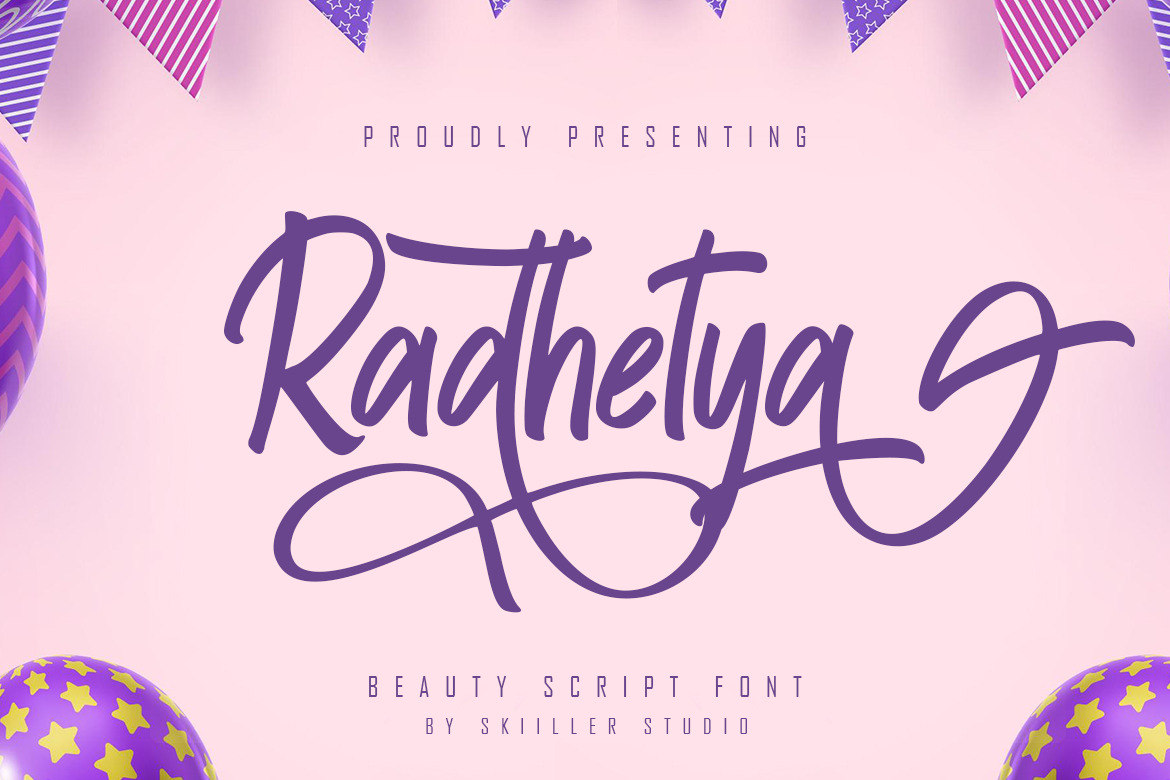
Radhetya - Beauty Script Font
Radhetya Beauty Script Font with a unique feel and a stunning impact. It will add a luxury spark to any design project that you wish to create! This font is PUA encoded which means you can access all of the amazing glyphs and ligatures with ease!
- ligature
- Stylistic Alternate
- Stylistic Set Full
- Basic Latin Language Support (AÀÁÂÃÄÅCÇDÐEÈÉÊËIÌÍÎÏÑOØÒÓÔÕÖUÙÜÚÛWYÝŸÆß )